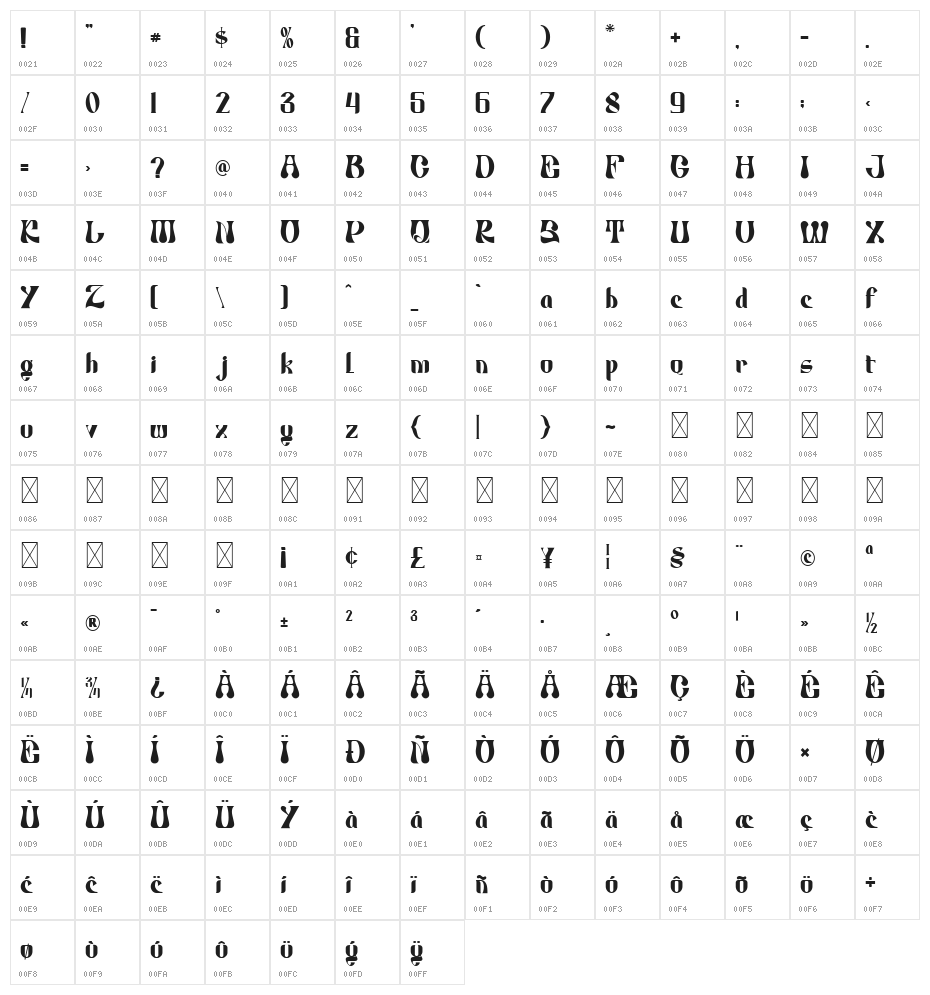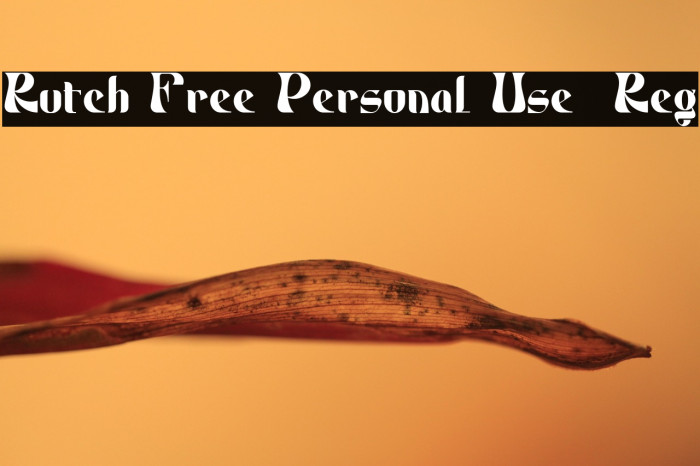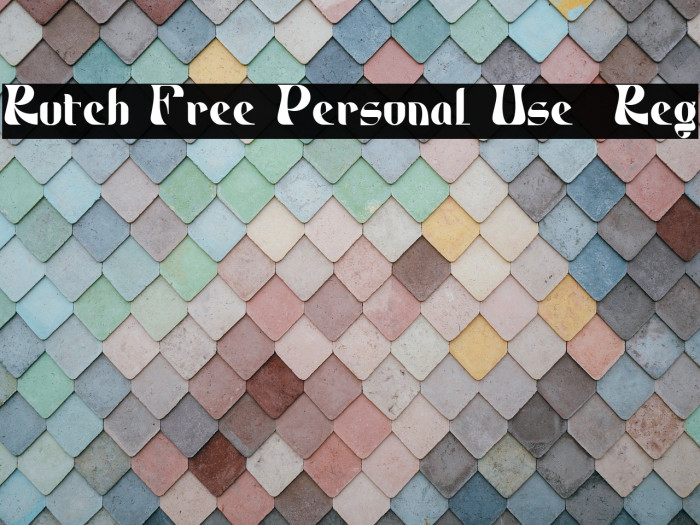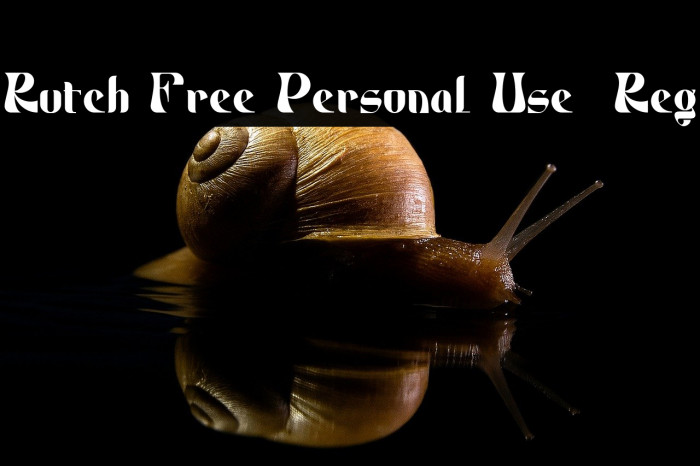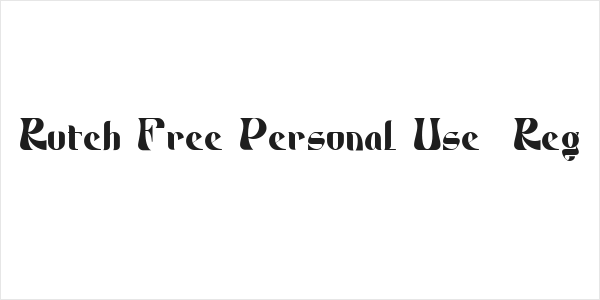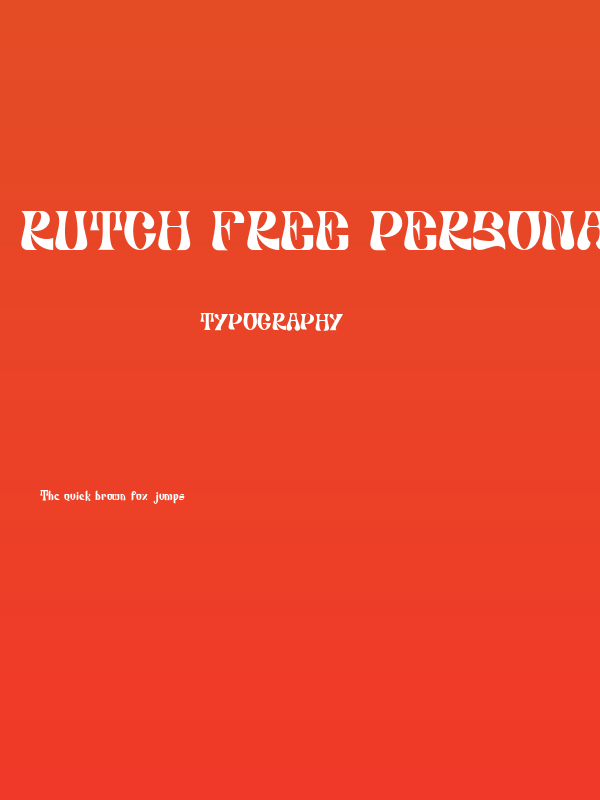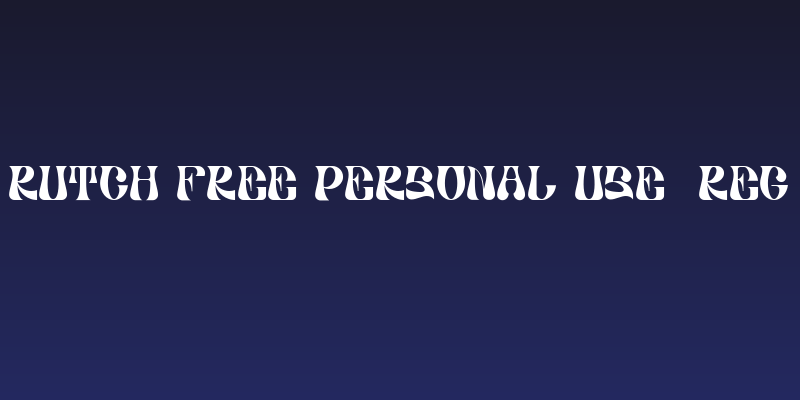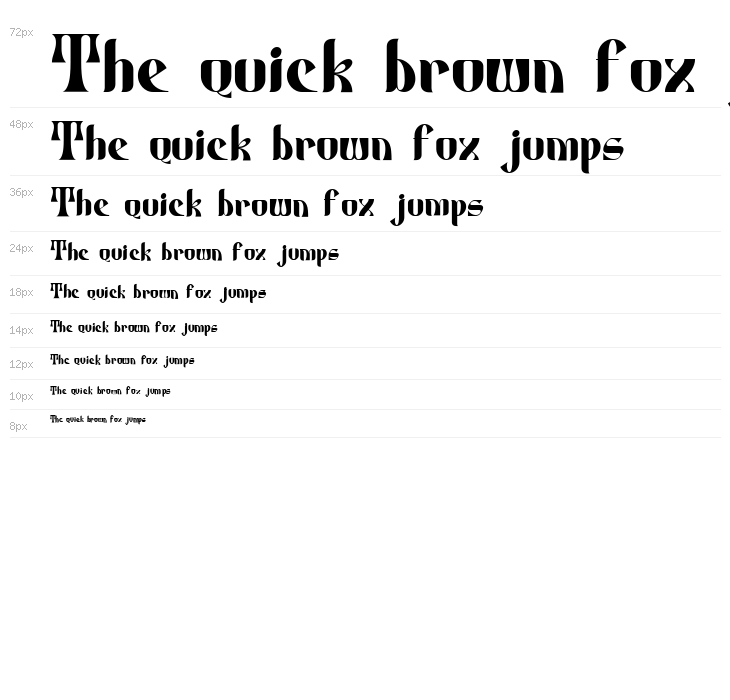
Rutch Free Personal Use Reg Font
Rutch Free Personal Use Reg Description
This font features a bold and dramatic design with high contrast between thick and thin strokes, giving it a striking and modern appearance. The uppercase letters are particularly distinctive, with unique shapes and curves that add a sense of flair and creativity. The lowercase letters maintain a consistent style, complementing the uppercase with a slightly more subdued yet still bold presence. The numerals are equally bold, ensuring they stand out in any design. Special characters are designed with the same attention to detail, making them cohesive with the rest of the font. Overall, this font is perfect for making a statement in any project.
| Proposed Projects | Ideal for branding, poster design, headlines, and any project requiring a bold statement. |